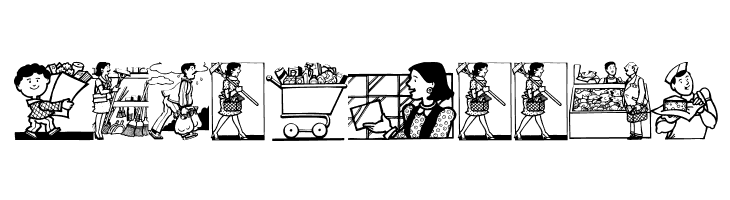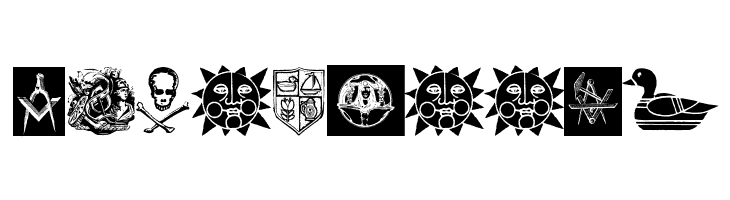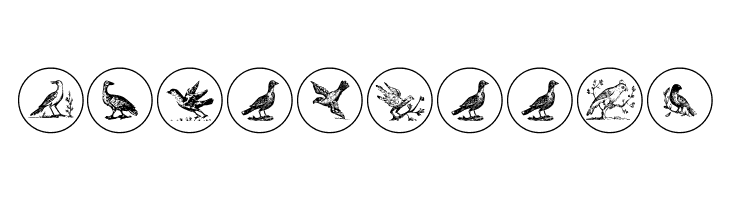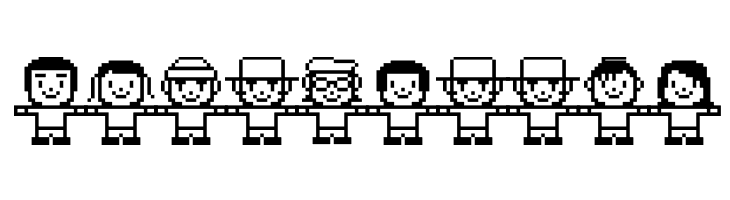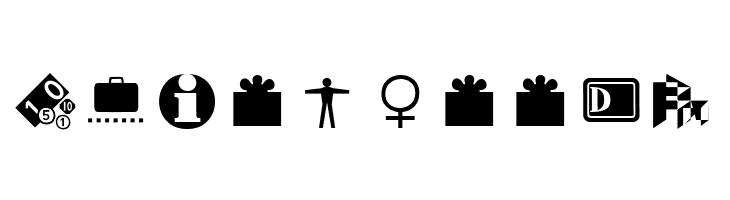
A decorative font with shopping-themed illustrations for each character.
A detailed decorative symbol font with emblems and pictograms.
Ornamental font with vintage bird illustrations in circles.
Pixel-art decorative font with cartoon characters holding hands.
A bold icon set for gaming and tabletop themes.
A whimsical collection of illustrated faces with unique expressions.